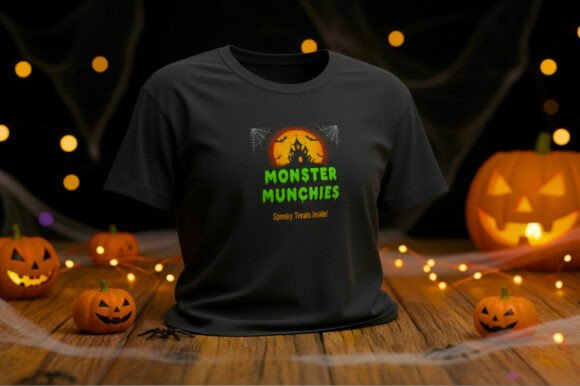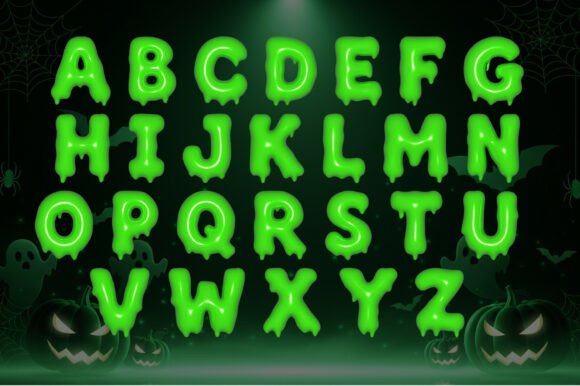
Slime Drip Halloween Font
Slime Drip Halloween Font is a spooky and playful 3D typeface with a gooey slime effect, perfect for Halloween designs. Its glowing, dripping style adds a creepy yet fun touch, making it ideal for party invitations, posters, packaging, social media graphics, and DIY crafts.
Bring your Halloween projects to life with Slime Drip Halloween Font – bold, scary, and eye-catching!